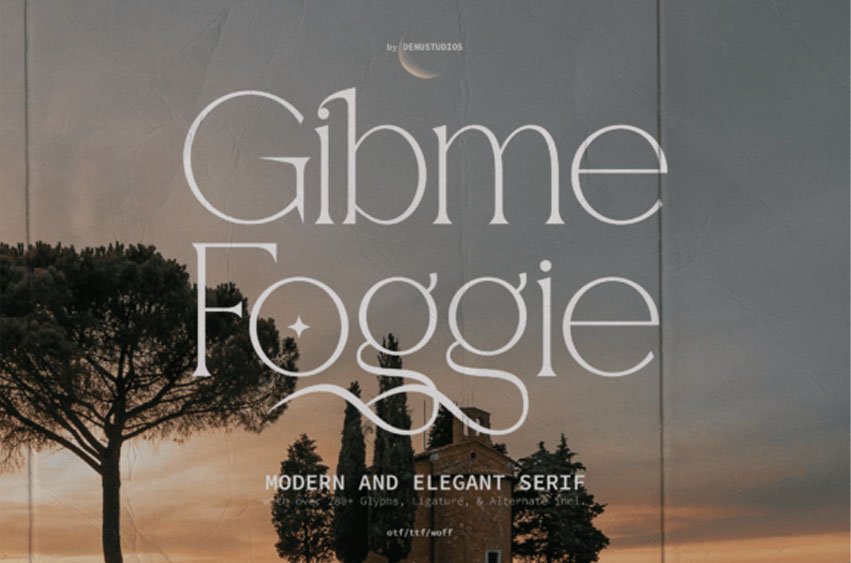
Gibme Foggie Font is a modern and elegant serif font that combines timeless sophistication with a contemporary twist. Featuring over 280 glyphs, ligatures, and alternates, it offers endless possibilities for creating refined designs.
Perfect for high-end branding, editorial layouts, wedding invitations, or minimalist logos, this typeface radiates class and creativity with its sleek lines and subtle curves.